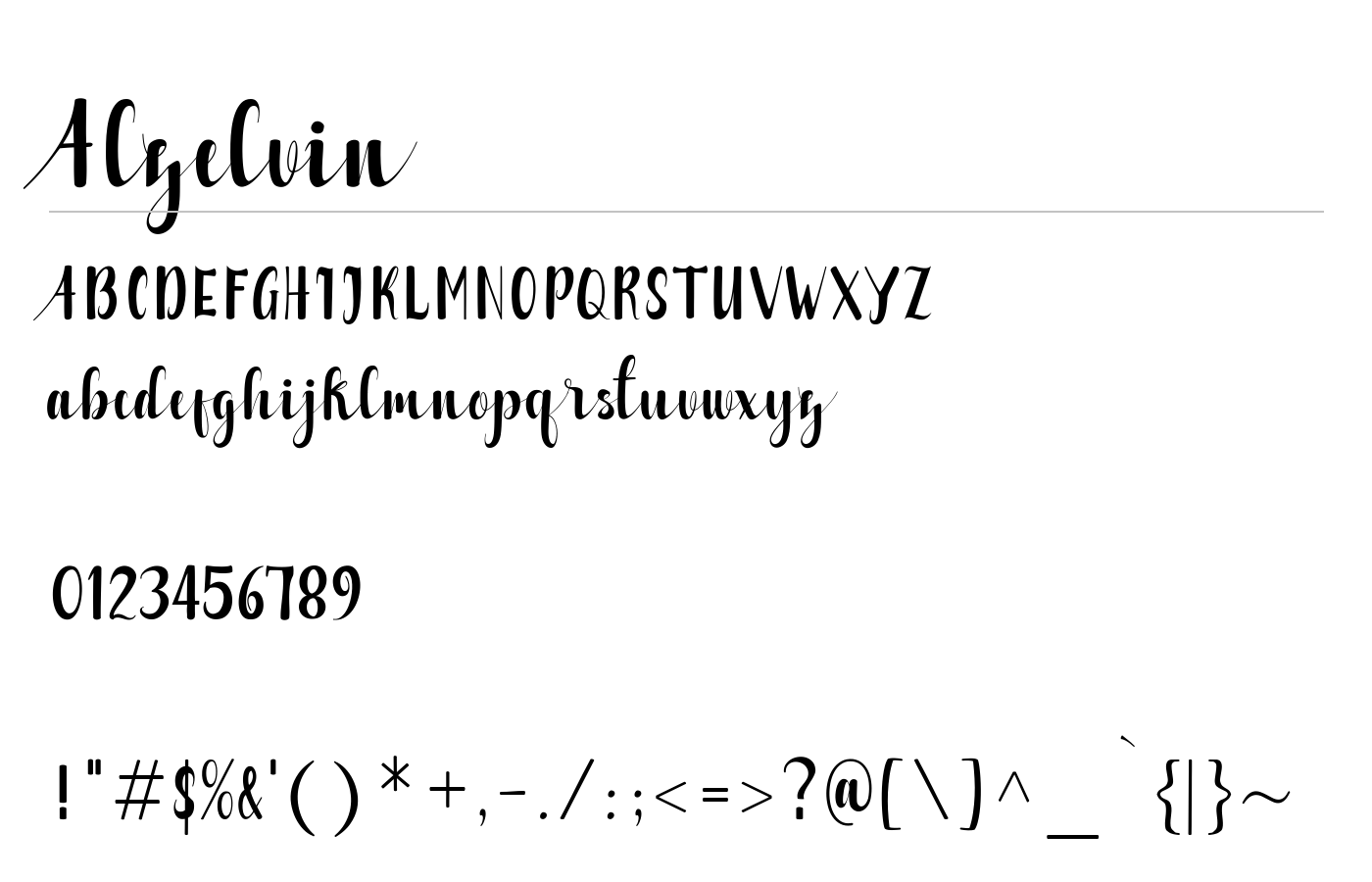
Alzelvin is a stylish script font with a blend of elegant thin strokes and bold, rounded forms that create a dynamic and modern look. Its tall, narrow letterforms with playful swashes and curled details give it a chic, handcrafted feel, perfect for fashion branding, invitations, and creative headlines. This font brings a sophisticated yet approachable vibe, making it ideal for projects that want to stand out with personality and flair.
Alzelvin Font